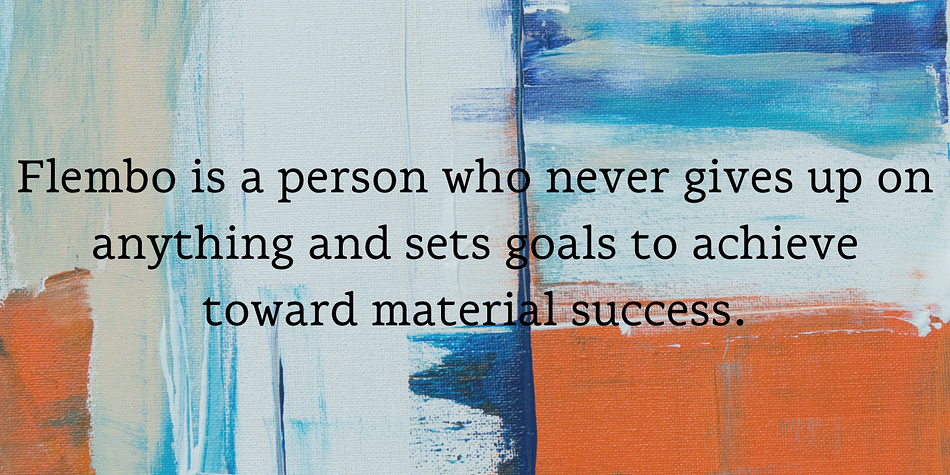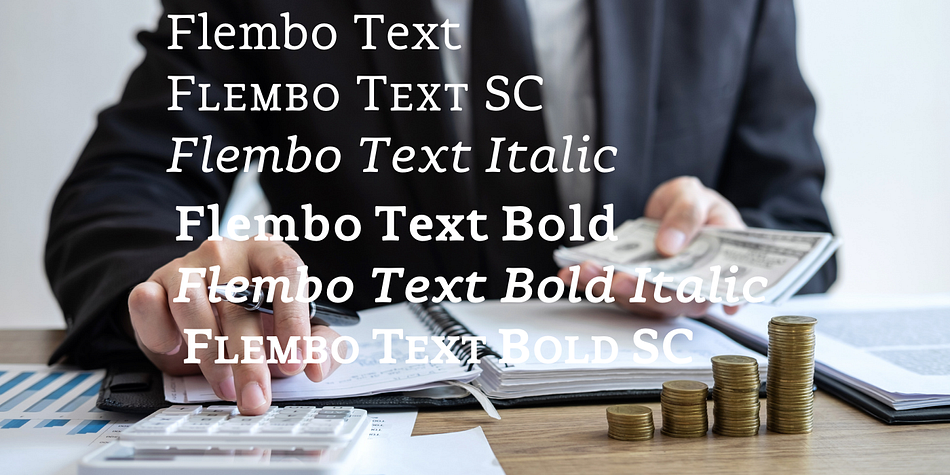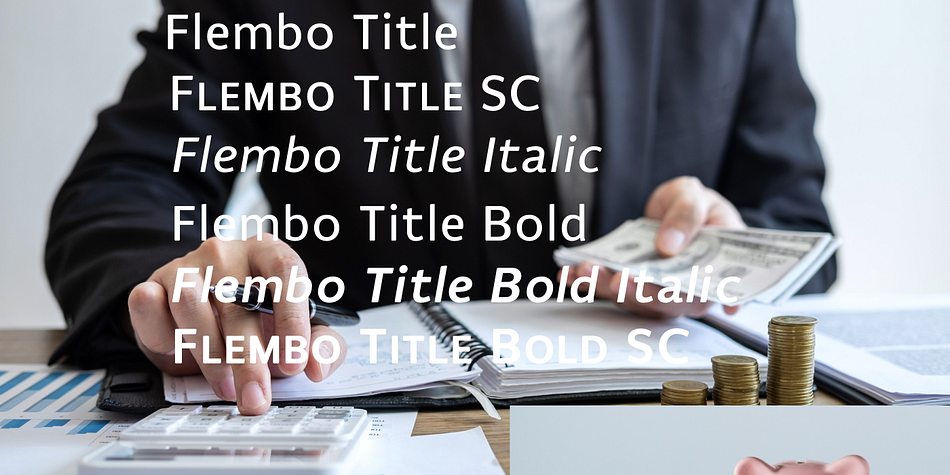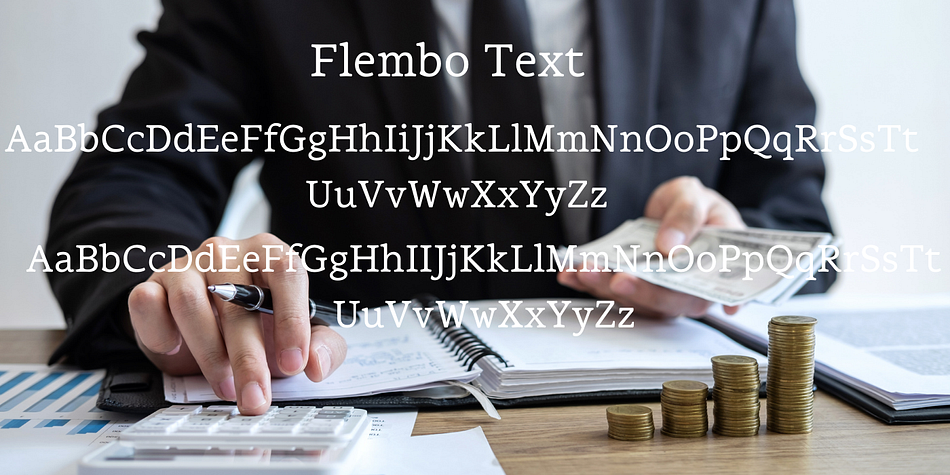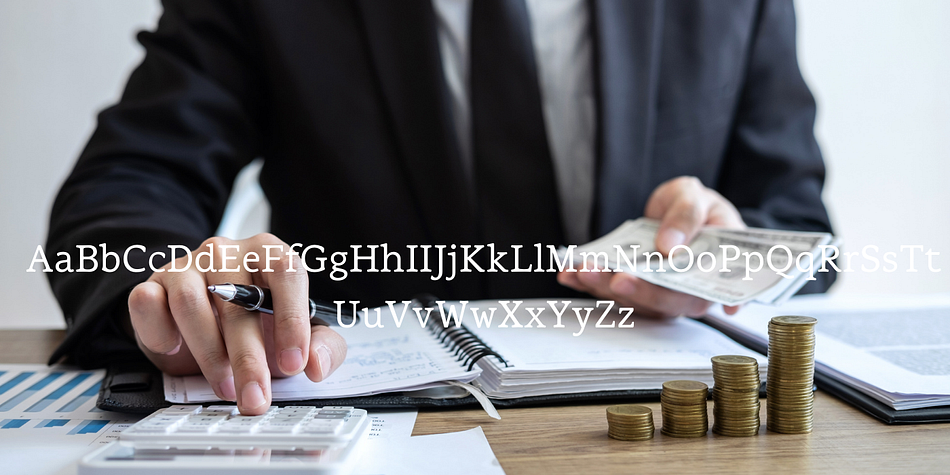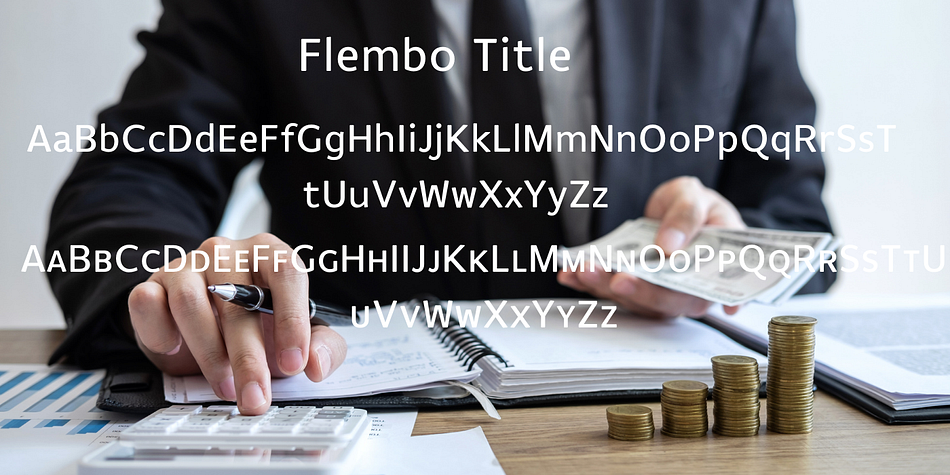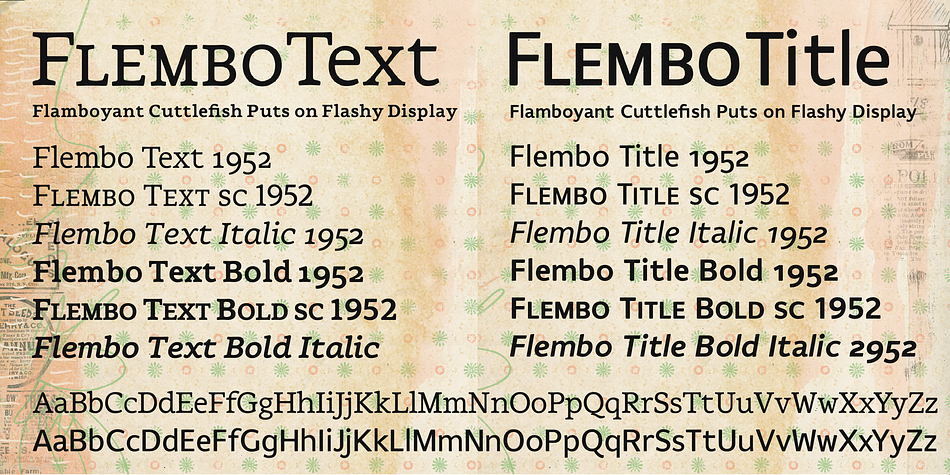
Flembo
Designed by Samy Halim, Flembo is a sans serif and serif font family. This typeface has twelve styles and was published by FontHaus.
Designed by Samy Halim, Flembo Text is a serif font that works seamlessly with Flembo Title styles. Contemporary, clean, and trendy. Excellent for print or web.